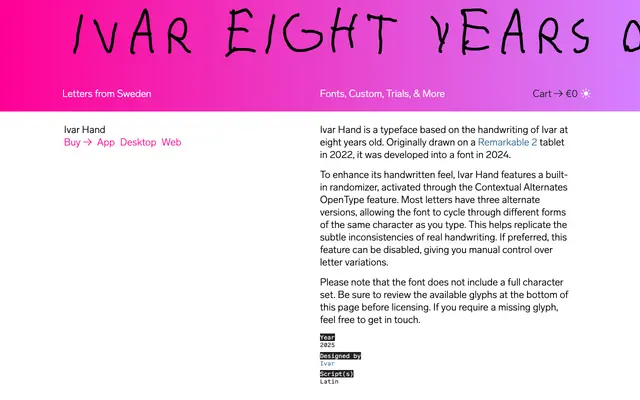
Ivar Hand
Letters from Sweden · Ivar · 2025
A single-weight script typeface drawn from the handwriting of an eight-year-old, with a built-in OpenType randomiser cycling through three alternate letterforms per character.
Originally sketched on a Remarkable 2 tablet in 2022 and developed into a font in 2025, this typeface replicates the uneven rhythm of a child's handwriting through contextual alternates. Most letters carry three variants that rotate automatically as you type, avoiding the repetitive look common to single-drawn script fonts. The character set is intentionally limited, so checking available glyphs before licensing is advisable.
Based directly on the handwriting of an eight-year-old child, this is an informal script typeface with built-in OpenType randomisation to simulate the natural inconsistency of real handwriting.